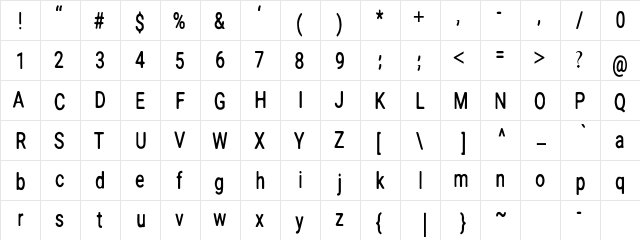
Ratoon Land Regular
Design Context for Ratoon Land Typeface
Ratoon Land takes a measured approach to typography — its balanced proportions and neutral character make it a reliable workhorse for both digital and print work.